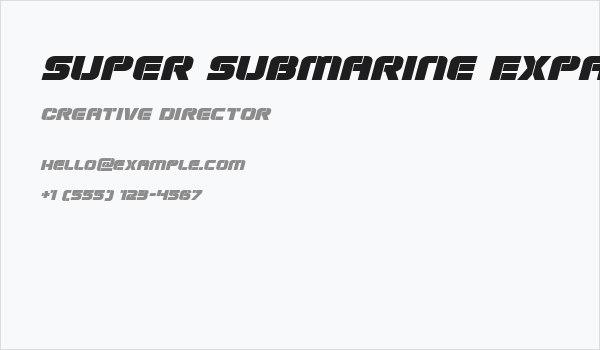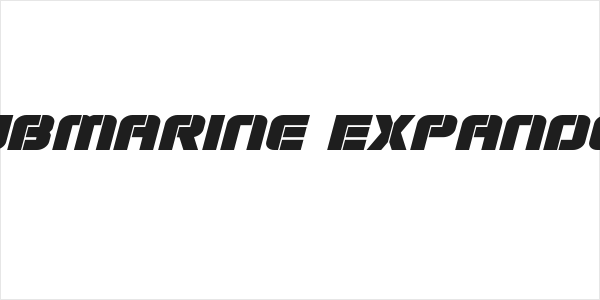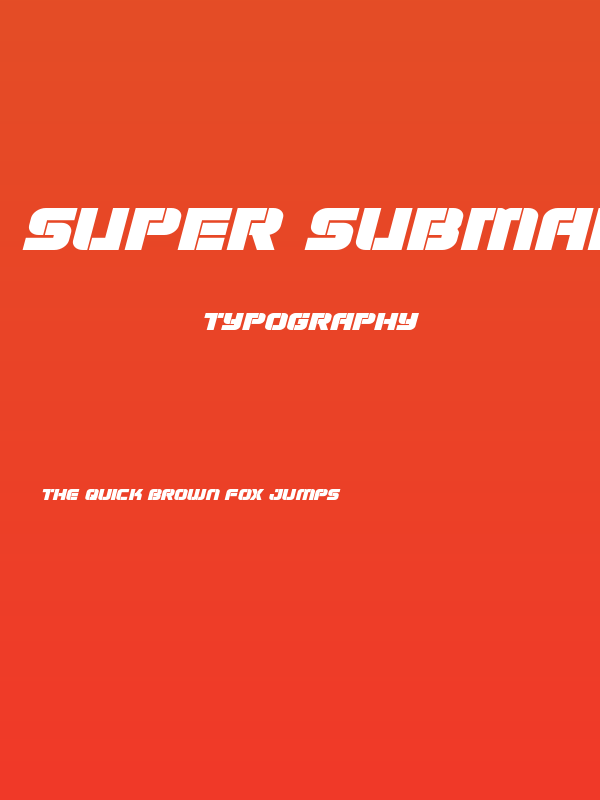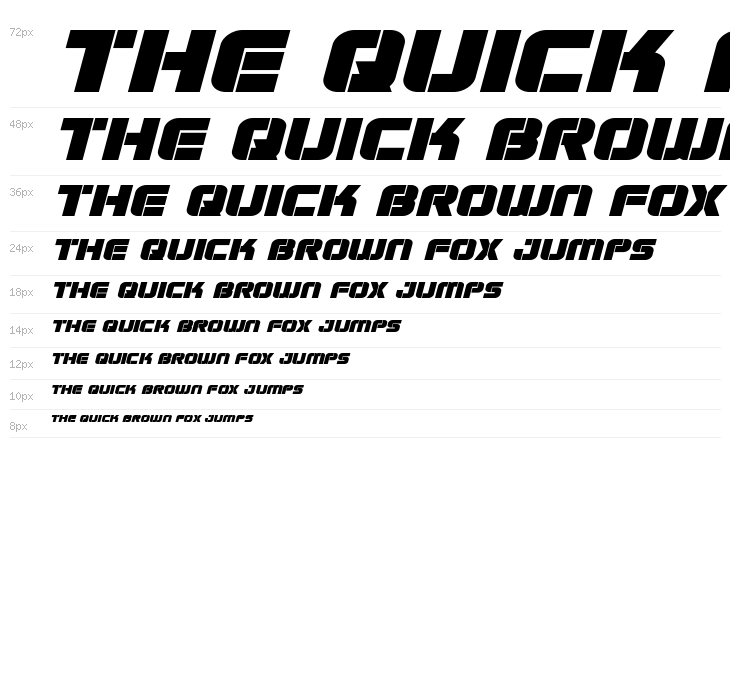
Super Submarine Expanded Italic Font
Super Submarine Expanded Italic Description
This font features a bold and dynamic design with an italicized slant, giving it a sense of motion and energy. The characters are expanded, providing a wide and impactful presence. Each letter is constructed with sharp, angular edges and a futuristic aesthetic, making it ideal for projects that require a modern and edgy look. The font's thick strokes and geometric shapes contribute to its strong visual impact, while the expanded width ensures readability even at smaller sizes. Its unique style makes it suitable for attention-grabbing headlines and branding materials.
| Proposed Projects | Ideal for branding, sports team logos, video game titles, and sci-fi themed designs. |